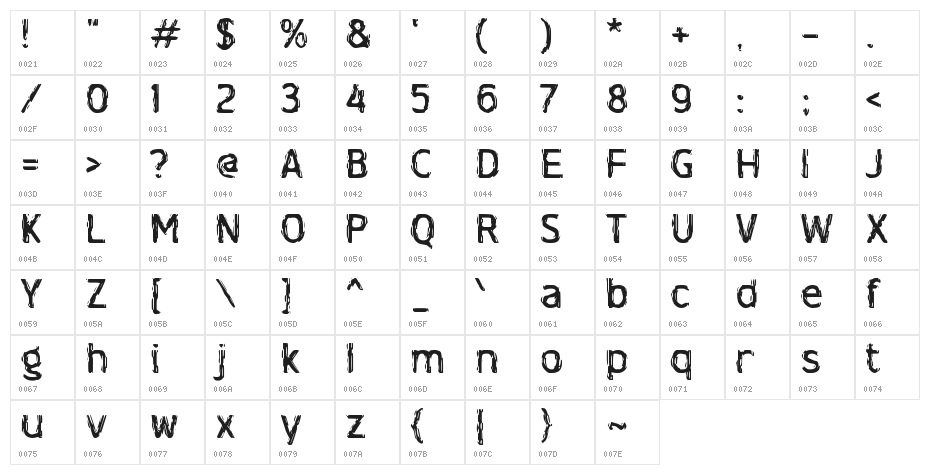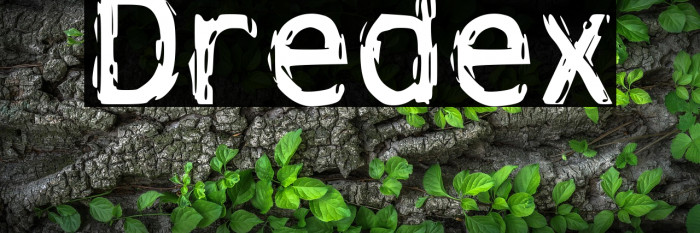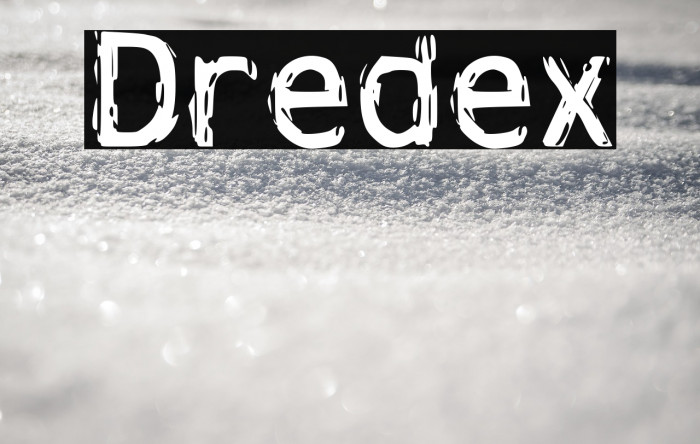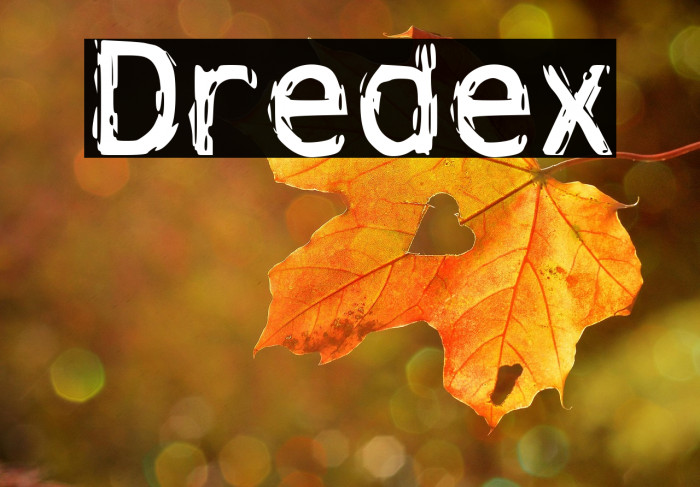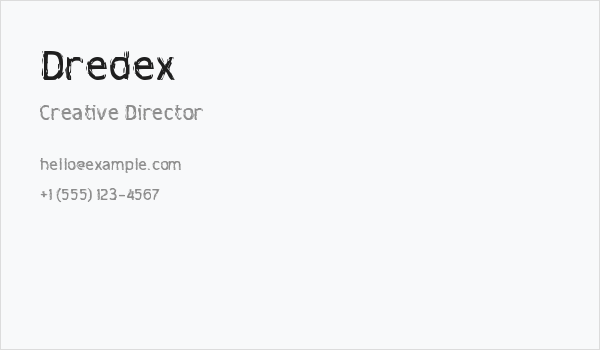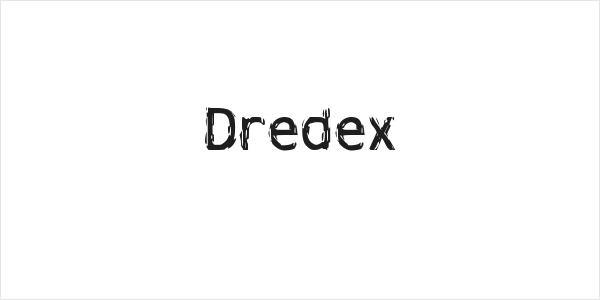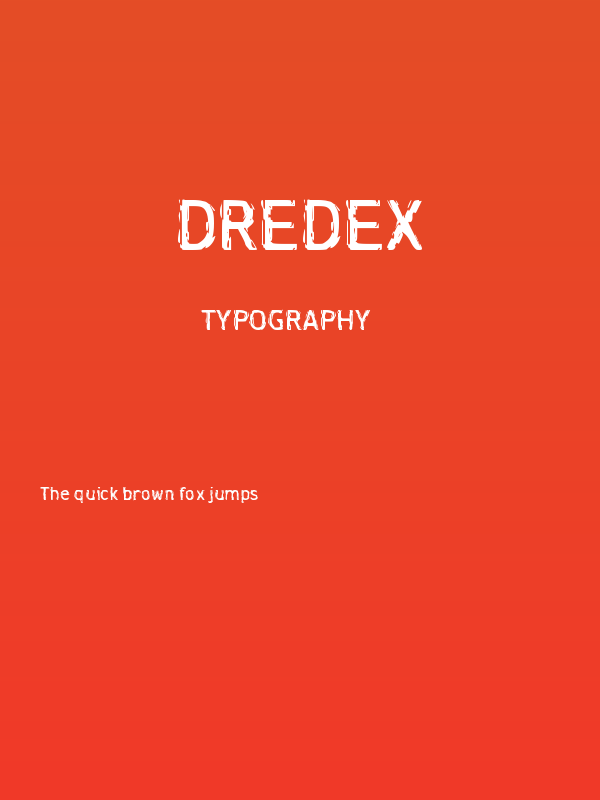
Dredex Font
Dredex Description
This font features a rugged, distressed appearance with irregular edges and a textured look, giving it a grunge or urban style. The uppercase and lowercase letters maintain a consistent height, while the numbers and special characters follow the same distressed pattern. The font's unique style makes it stand out, with each character appearing as if it has been weathered or eroded over time. This adds a dynamic and edgy feel to any design, making it suitable for projects that aim to convey a sense of rawness or authenticity.
| Overall Style | Grunge, Urban, Edgy |
| Proposed Projects | Ideal for album covers, streetwear branding, posters, and edgy graphic designs. |